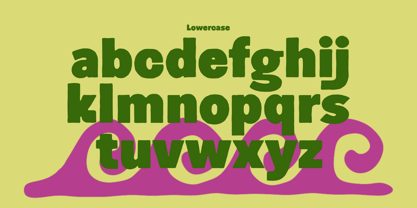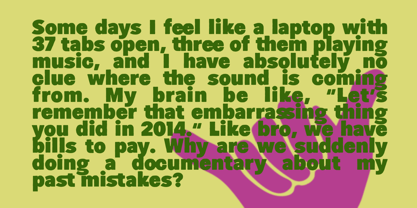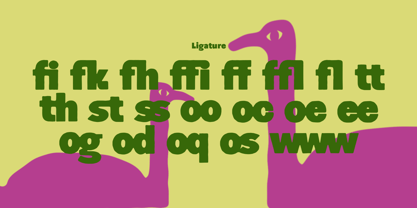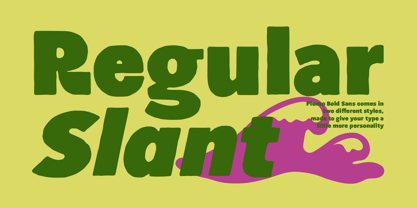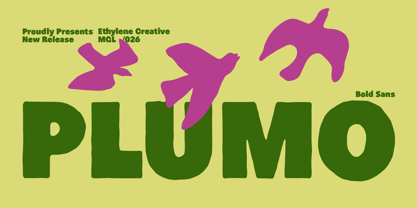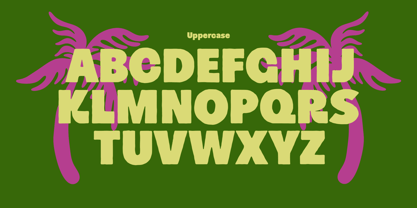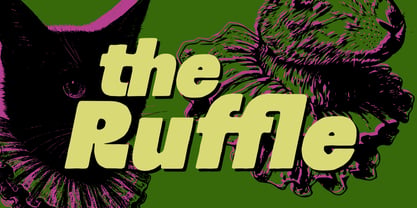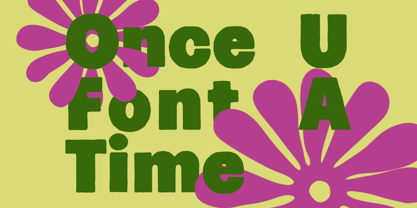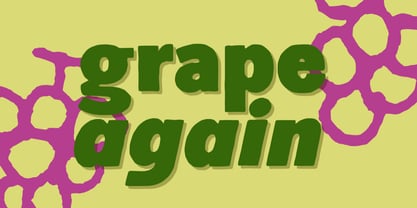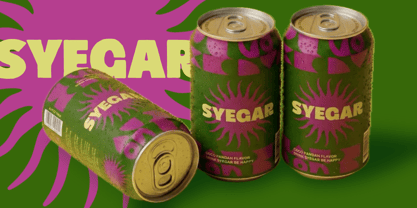
Plumo
von Ethylene
Die Schriftfamilie Plumo wurde von Cherly Nugroho entworfen und von Ethylene veröffentlicht. Plumo enthält 2 Stile und Familienpaketoptionen. Mehr über diese Familie
Plumo is a bold, playful, and expressive display font family created for designs that need a little more personality.
Featuring chunky organic letterforms, soft curves, quirky proportions, and an unmistakably handmade character, Plumo brings an energetic and fun attitude to your typography. Its bold shapes make it highly effective for headlines, logos, packaging, posters, apparel, and other attention-grabbing designs.
The family includes Regular and Slant styles, giving you the flexibility to create different moods while maintaining the same distinctive visual language.
To add even more character to your lettering, Plumo comes with Contextual Alternates and Ligatures. Contextual Alternates introduce selected character variations depending on their position within a word, while Ligatures combine specific letter combinations into unique forms. Together, these OpenType features help create a more natural, dynamic, and playful typographic appearance.
Whether you're designing a funky logo, retro-inspired packaging, bold poster, playful merchandise, or eye-catching social media artwork, Plumo is made to make your words stand out.
Designer: Cherly Nugroho
Foundry: Ethylene